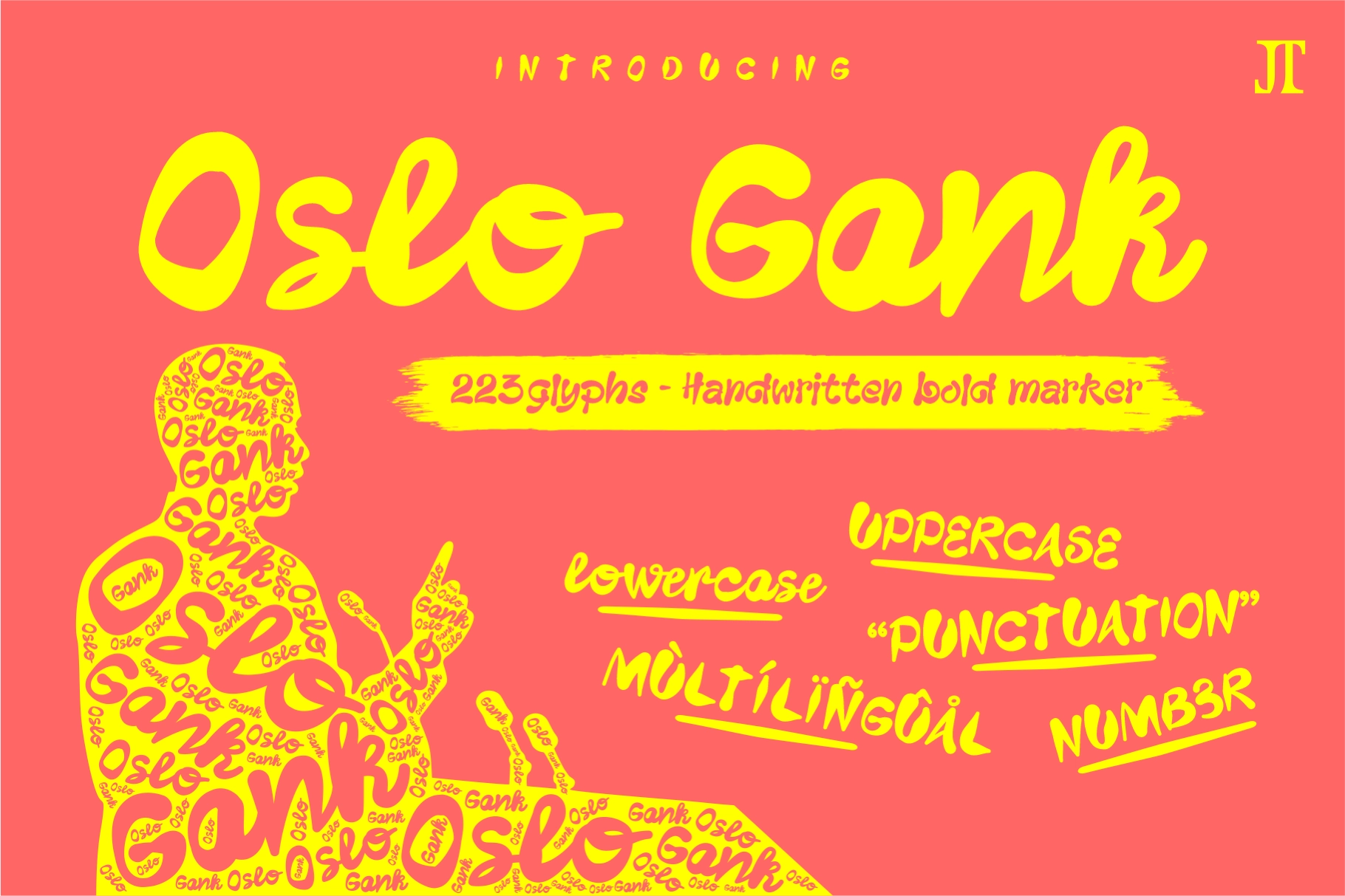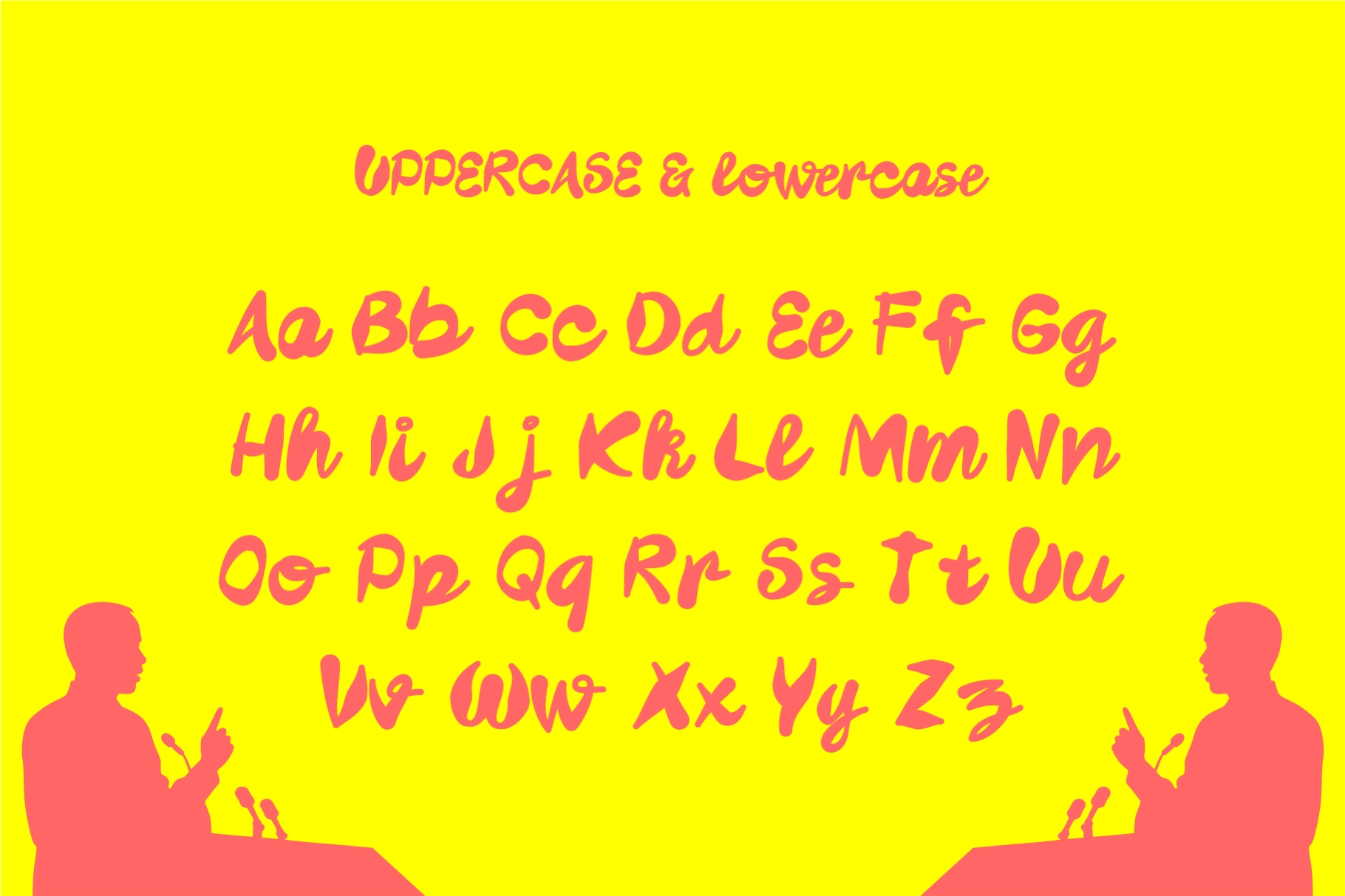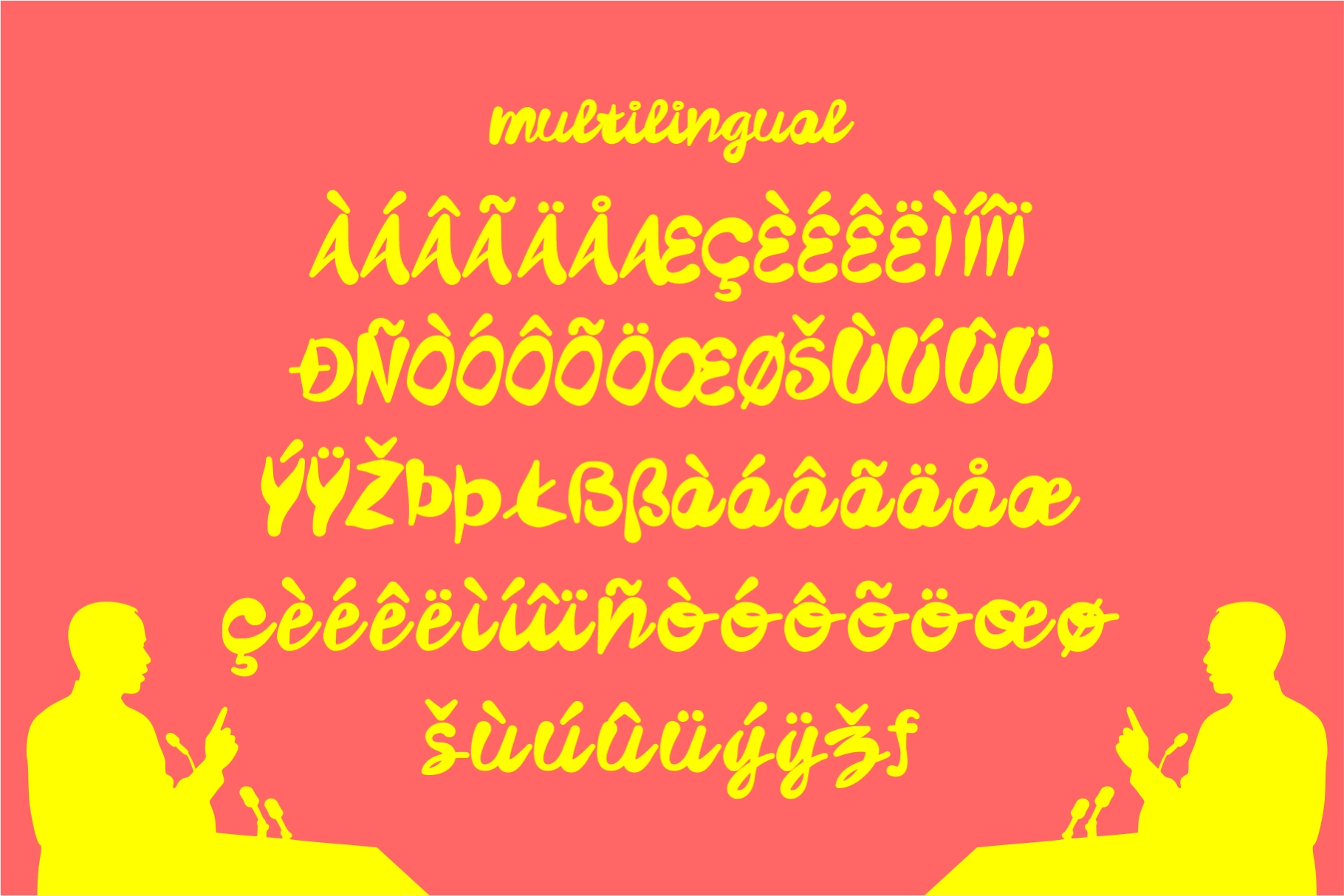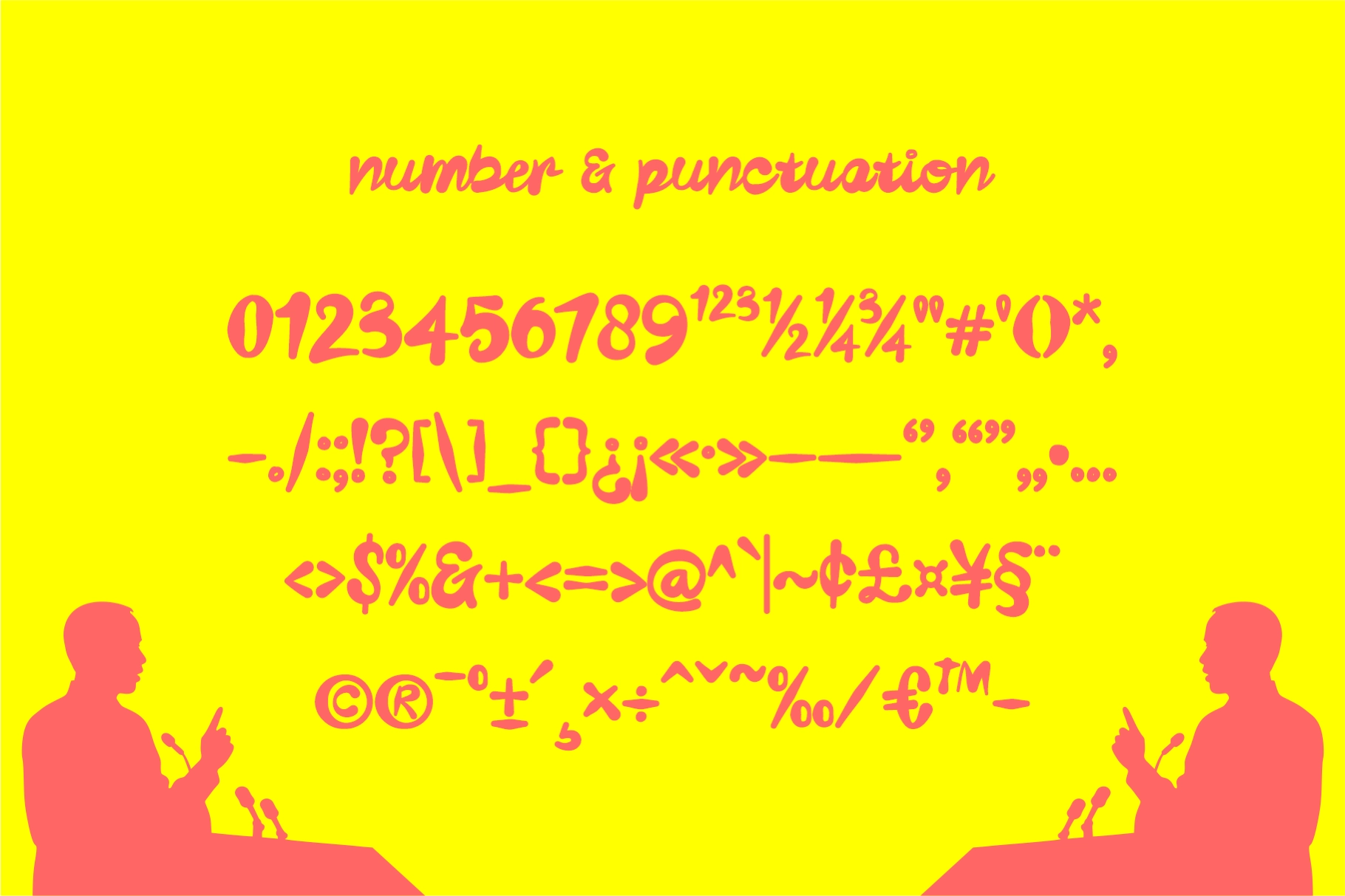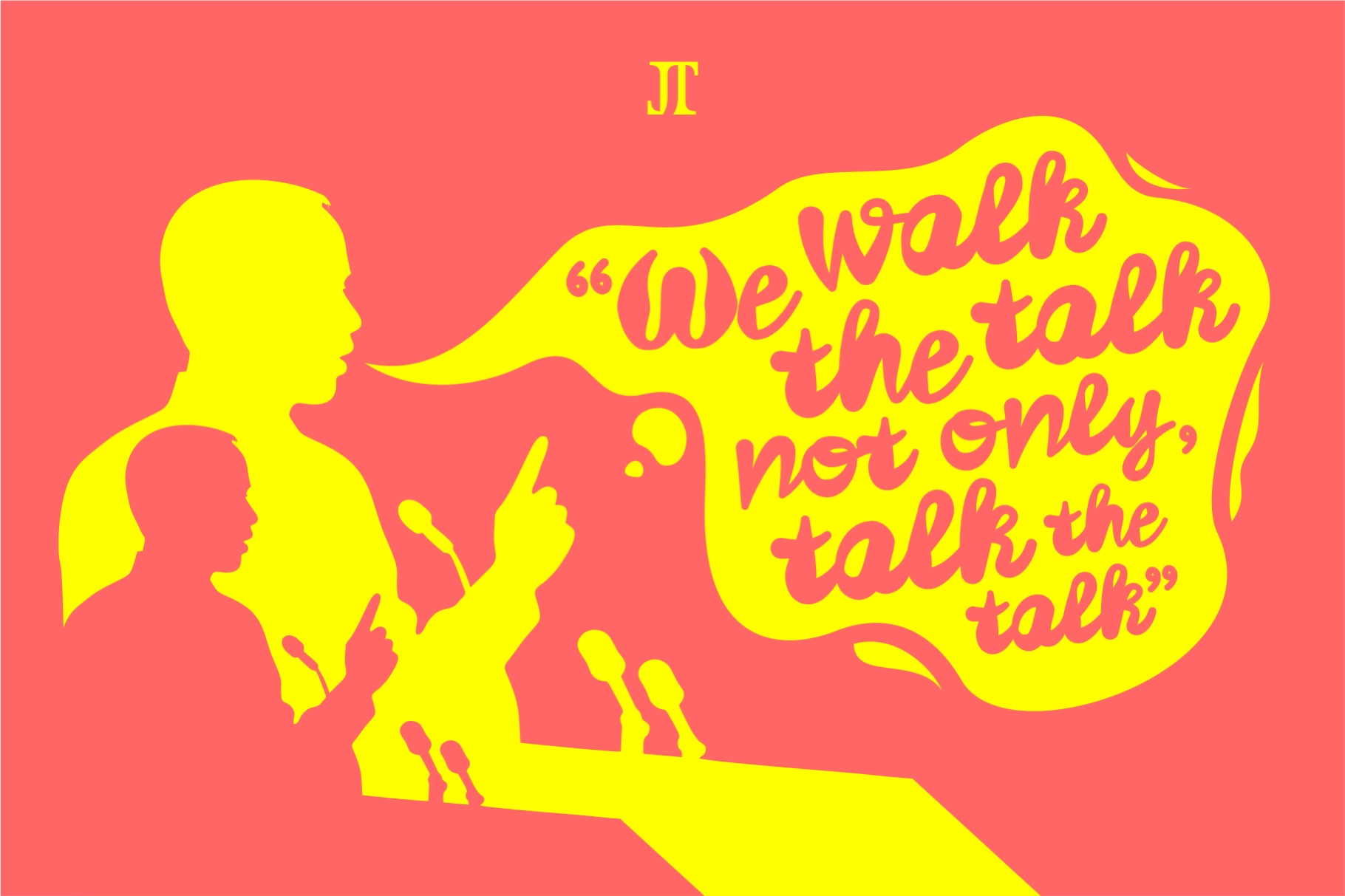
Oslo Gank - Handwritten Brush Script Font
Oslo Gank
This handwritten font has thick marker strokes, loose curves, and a punchy street-poster rhythm. The brush-style texture is bold and casual, giving every word a loud, human look that is great for expressive headlines and energetic display type.
Oslo Gank works for logo design, poster art, apparel graphics, sticker packs, T-shirt prints, social media posts, YouTube thumbnails, event flyers, quote layouts, packaging, zines, album covers, campaign slogans, and merch drops. Its oversized strokes and quick handwritten motion are best at larger sizes, where the letters can take over the layout with zero apologies.
- 223 glyphs